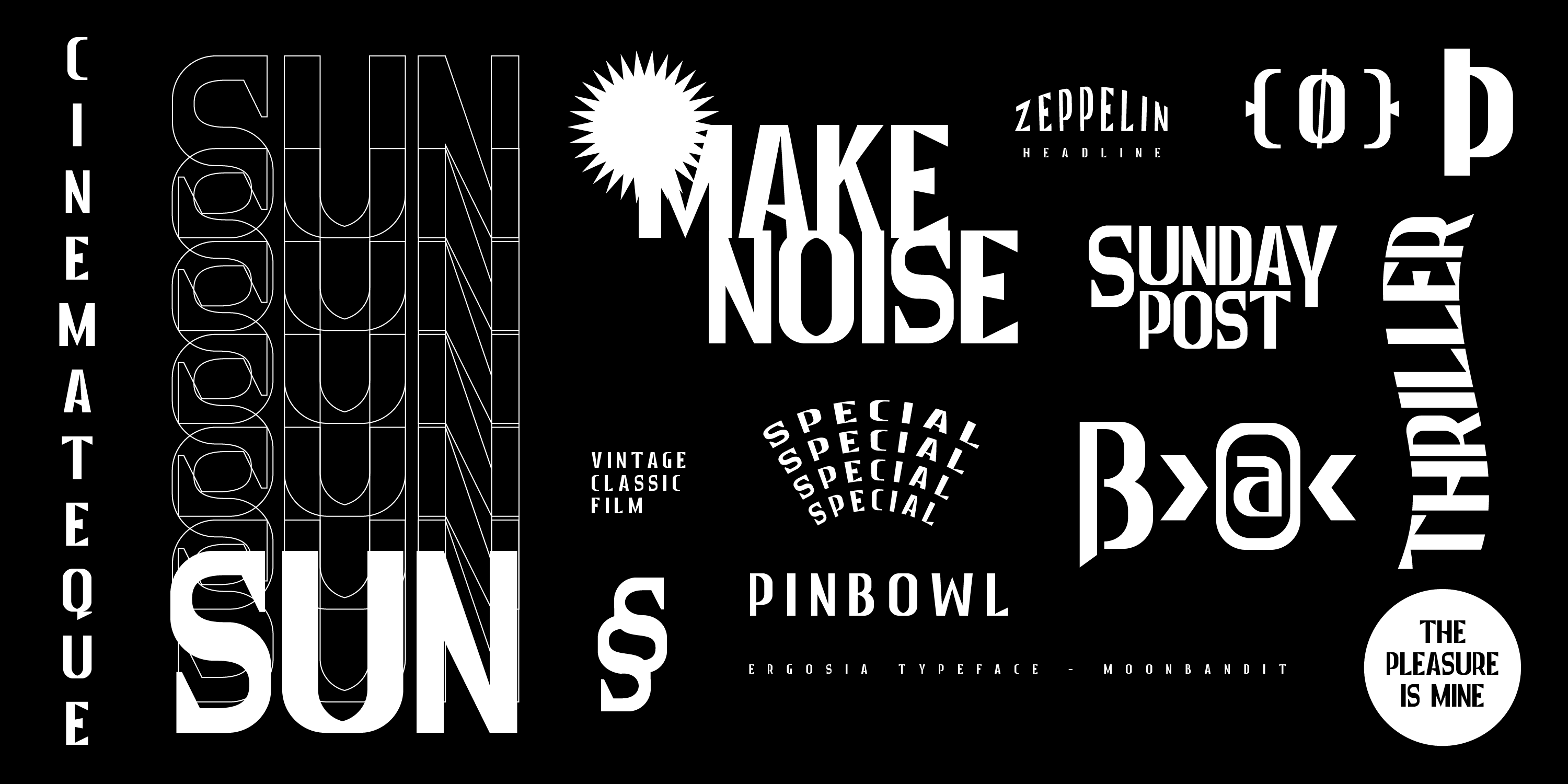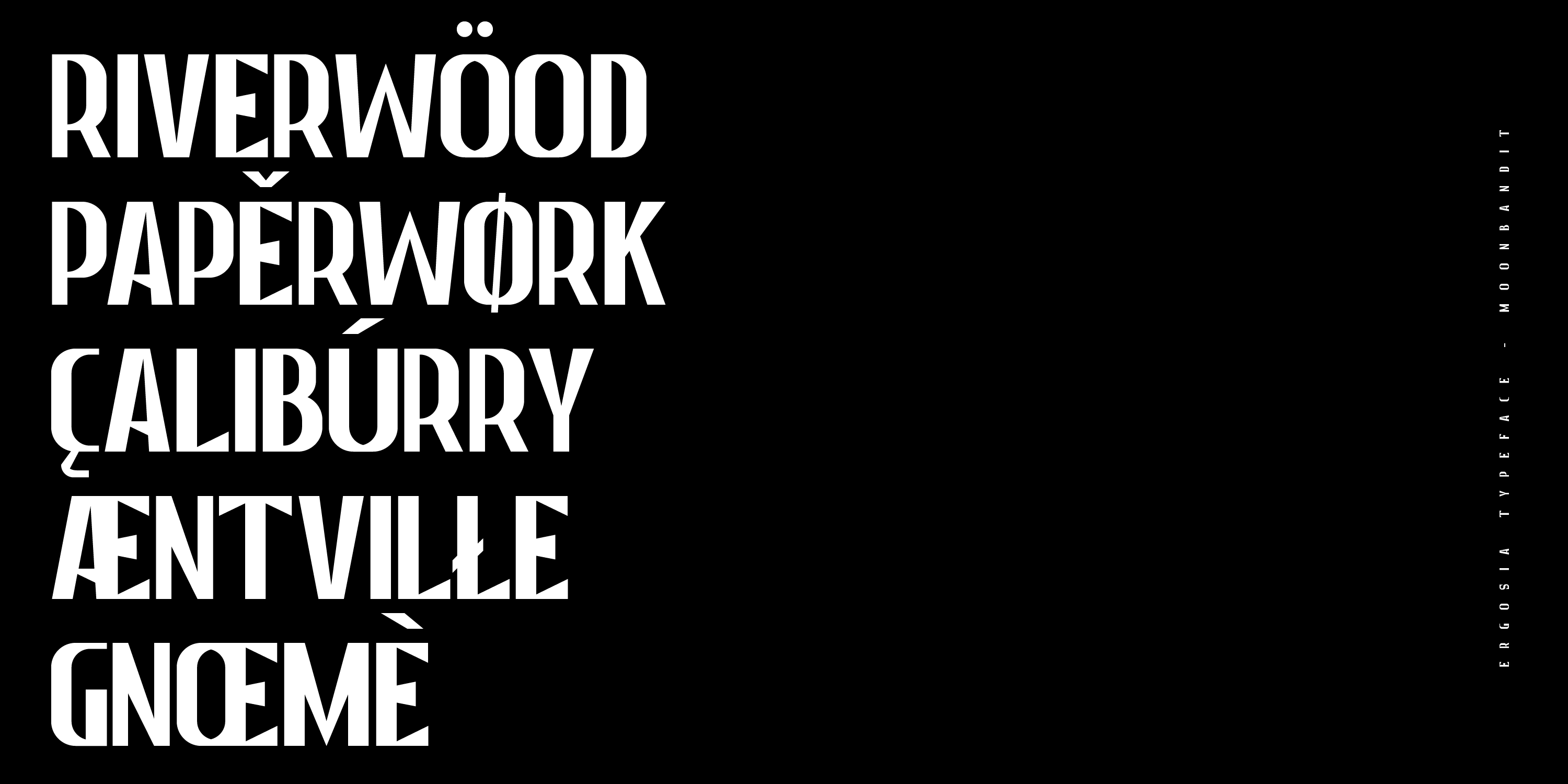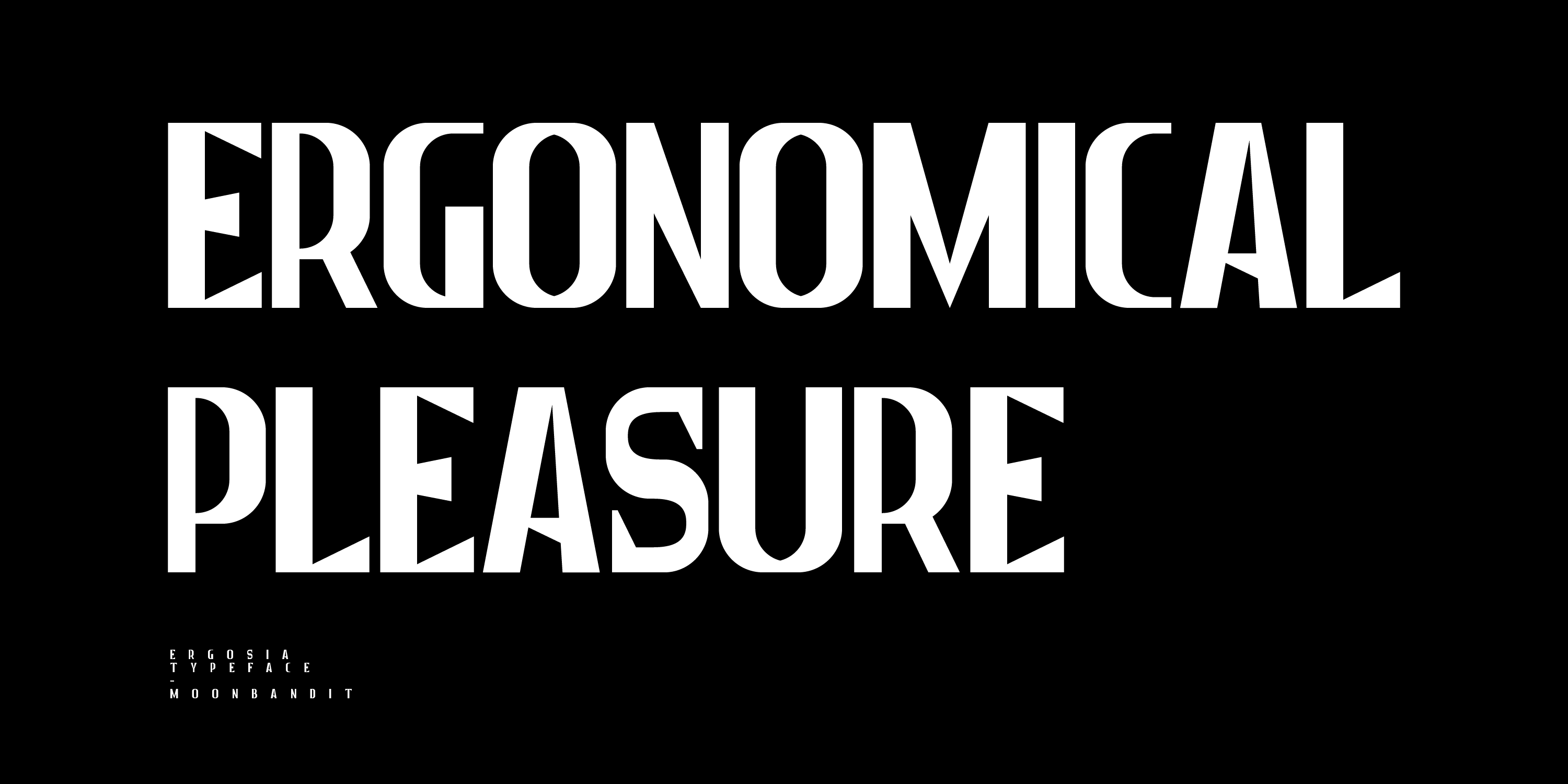
MBF Ergo
This is a trendy big and bold modern sans serif font. This typeface is perfect for logo, branding, poster, signage, headline, titling, display and many more.